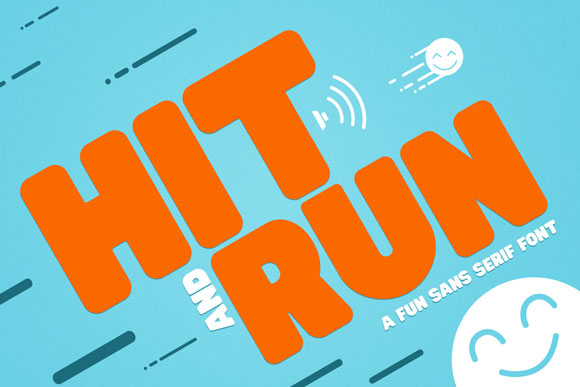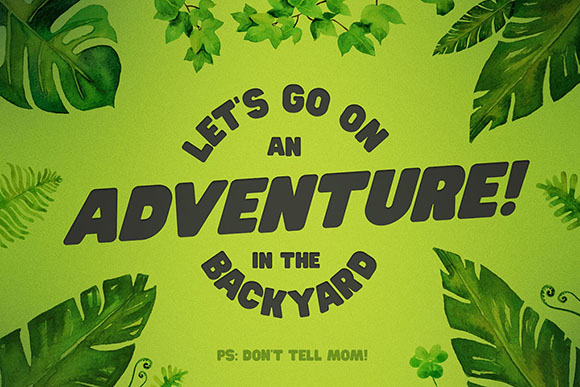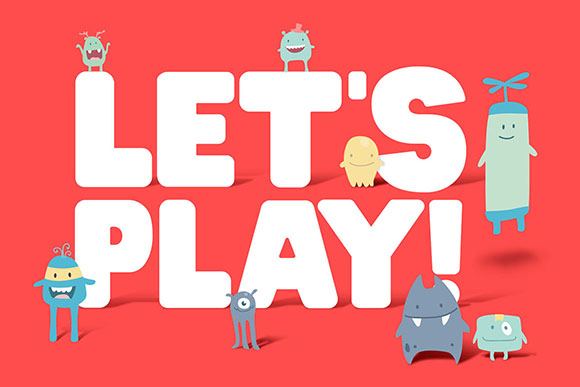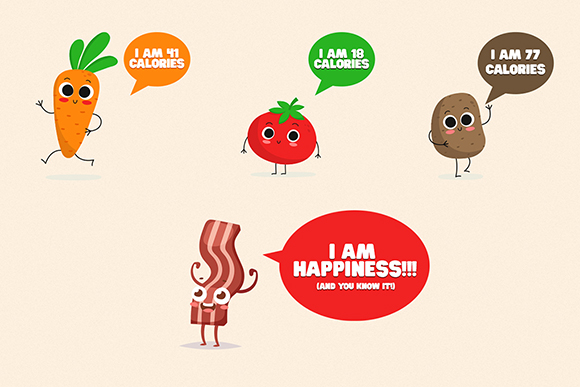
A Sans Serif font ready to have fun! Ready to ring the bell and run to your layouts! Great for all kind of kids layouts, invites, Instagram posts, etc.